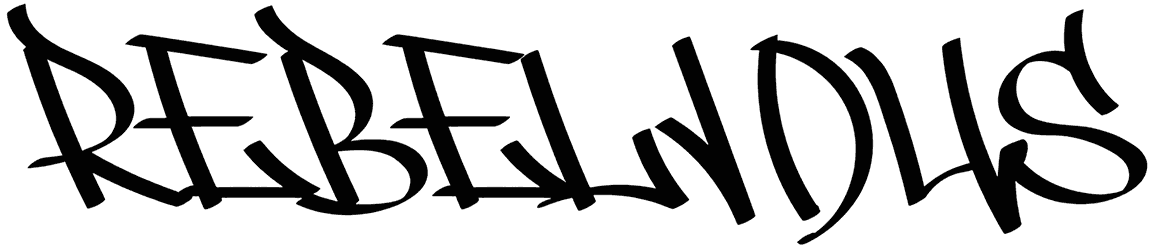
Rebelious Font
Suppose you have only a few seconds to impress and engage the audience with your graphic content; in this case, you definitely require a unique script font such as Rebelious.
Since the characters of this all-caps graffiti font are crooked and tilted, it can establish a sense of disorder, grunge, smudgy, or confusion in your artwork, including street posters, social media posts, illustrations, editorial projects, or product packaging.